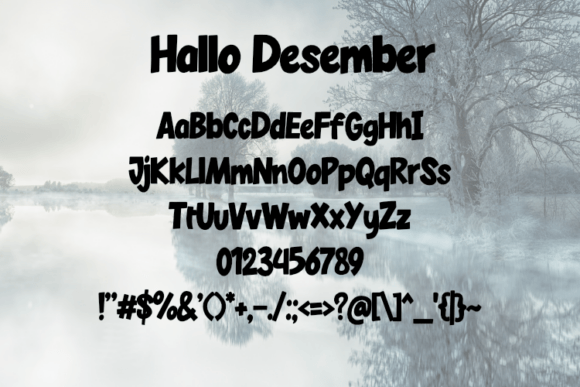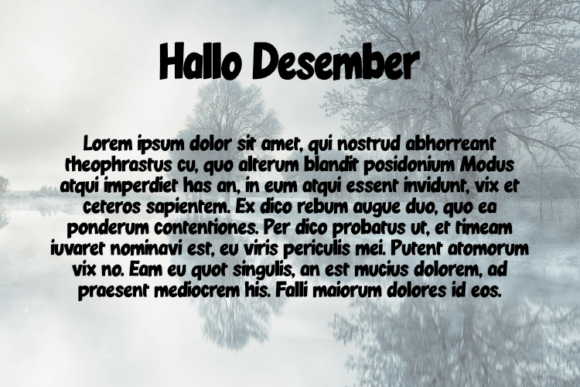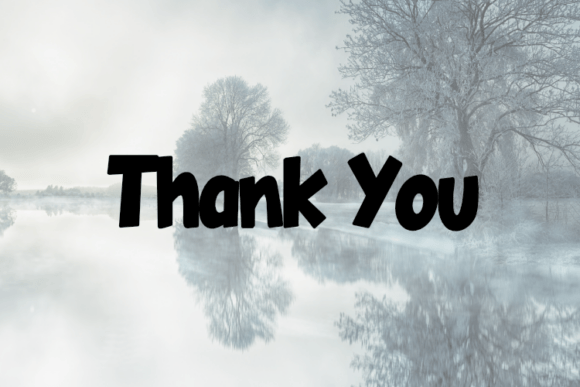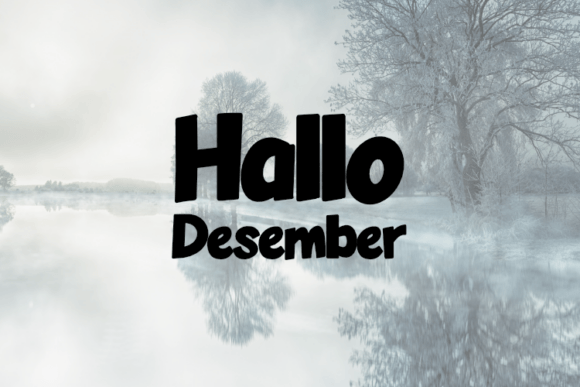
Introduction to Hallo Desember Font
Presenting Hallo Desember, a versatile typeface that is the ultimate designer’s companion.
An indispensable asset for fashion design, this chic font helps elevate clothing and t-shirt design to a whole new level Beyond this, Hallo Desember beautifully adapts to a wide array of design applications, adding a refined flair to any creation you imagine.
Why Choose Hallo Desember Font?
Hallo Desember Font offers exceptional quality and versatility, making it a valuable addition to your design toolkit. Whether you’re creating for personal projects or commercial use, Hallo Desember Font delivers professional results.